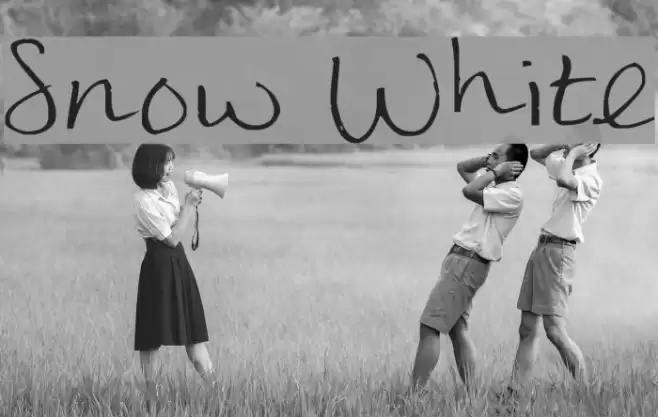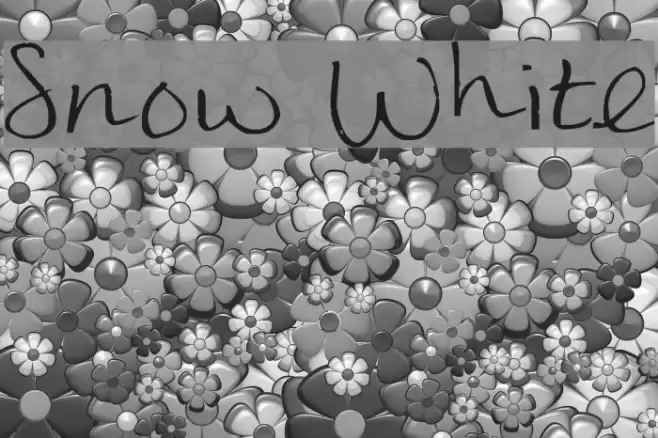
Snow White Font
Snow White Description
This font features a playful and informal handwritten style, characterized by its loose and flowing strokes. The uppercase letters exhibit a casual elegance with varying stroke widths, while the lowercase letters maintain a consistent, lively rhythm. Numbers and special characters follow the same whimsical design, adding a touch of personality to any text. The overall appearance is dynamic and energetic, making it suitable for creative and informal projects. Its unique style captures attention and conveys a sense of spontaneity and creativity.
A playful, informal handwritten font with dynamic strokes from Uncategorized fonts.
- Proposed Projects: Ideal for greeting cards, invitations, personal branding, and creative projects that require a personal touch.
- Use Case: Logos, Headlines, Creative projects